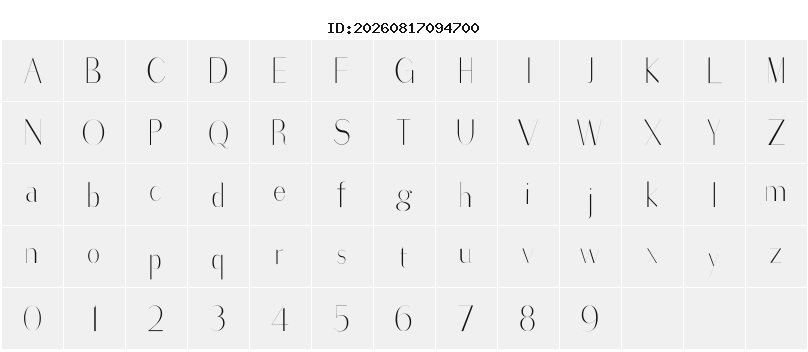
Sorreda Pro Preview
• Font Name: Sorreda Pro
• Full Font Name: Sorreda
About Sorreda Pro.ttf
Sorreda Pro.ttf is a modern, elegant sans-serif font designed for ultimate readability and visual harmony. Perfect for branding, headlines, web design, and print materials.